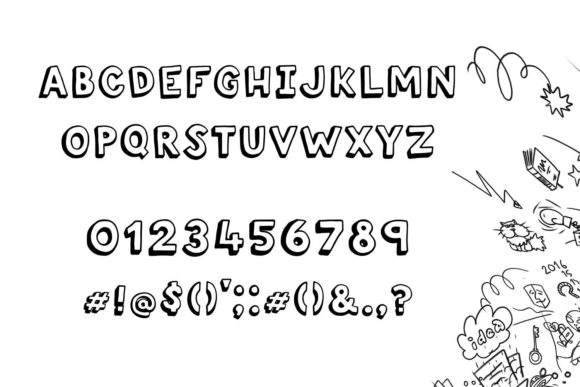
Introducing Harry Font: The Ultimate Display Font for Stunning Designs
Are you a designer or crafter looking for a font that can elevate your visual creations to the next level? Look no further than Harry Font, a cool, outlined, and thick lettered display font that’s perfect for a wide range of applications. In this article, we’ll explore the features and benefits of Harry Font, and show you how to make the most of its endless possibilities.
What is Harry Font?
Harry Font is a unique and stylish display font that’s designed to make a statement. Its thick, outlined letters give it a bold and eye-catching appearance that’s sure to grab attention. The font’s cool and modern aesthetic makes it perfect for designs that require a fresh and contemporary look.
Key Features of Harry Font
- Thick and outlined letters: The font’s thick letters and outlined design give it a bold and 3D-like appearance that’s perfect for headlines, titles, and other display text.
- Cool and modern aesthetic: Harry Font’s sleek and modern design makes it perfect for designs that require a fresh and contemporary look.
- Highly versatile: The font can be used for a wide range of applications, including food menus, posters, flyers, prints, and more.
- Easily readable: Despite its bold design, Harry Font is surprisingly easy to read, making it perfect for use in body text as well as headlines.
Use Cases for Harry Font
So, what can you use Harry Font for? The possibilities are endless! Here are a few ideas to get you started:
- Food menus: Add a touch of style to your restaurant’s menu with Harry Font. Its bold design and easy readability make it perfect for listing dishes and drinks.
- Posters and flyers: Create eye-catching posters and flyers with Harry Font. Its thick letters and outlined design make it perfect for grabbing attention and communicating your message.
- Prints and signage: Use Harry Font for prints and signage that require a bold and eye-catching design. Its durability and versatility make it perfect for indoor and outdoor use.
- Digital designs: Harry Font can also be used for digital designs, such as social media graphics, website headers, and more.
Tips for Using Harry Font
Here are a few tips for getting the most out of Harry Font:
- Experiment with colors: Harry Font looks great in a wide range of colors. Experiment with different colors and combinations to find the one that works best for your design.
- Play with sizes: The font’s bold design makes it perfect for use in large sizes. Experiment with different sizes to find the one that works best for your design.
- Combine with other fonts: Harry Font can be paired with other fonts to create a unique and interesting design. Experiment with different font combinations to find the one that works best for your design.
In conclusion, Harry Font is a versatile and stylish display font that’s perfect for designers and crafters looking to elevate their visual creations. Its thick, outlined letters and cool, modern aesthetic make it perfect for a wide range of applications, from food menus to posters and flyers. With its endless possibilities and ease of use, Harry Font is a must-have font for any designer or crafter looking to take their designs to the next level.